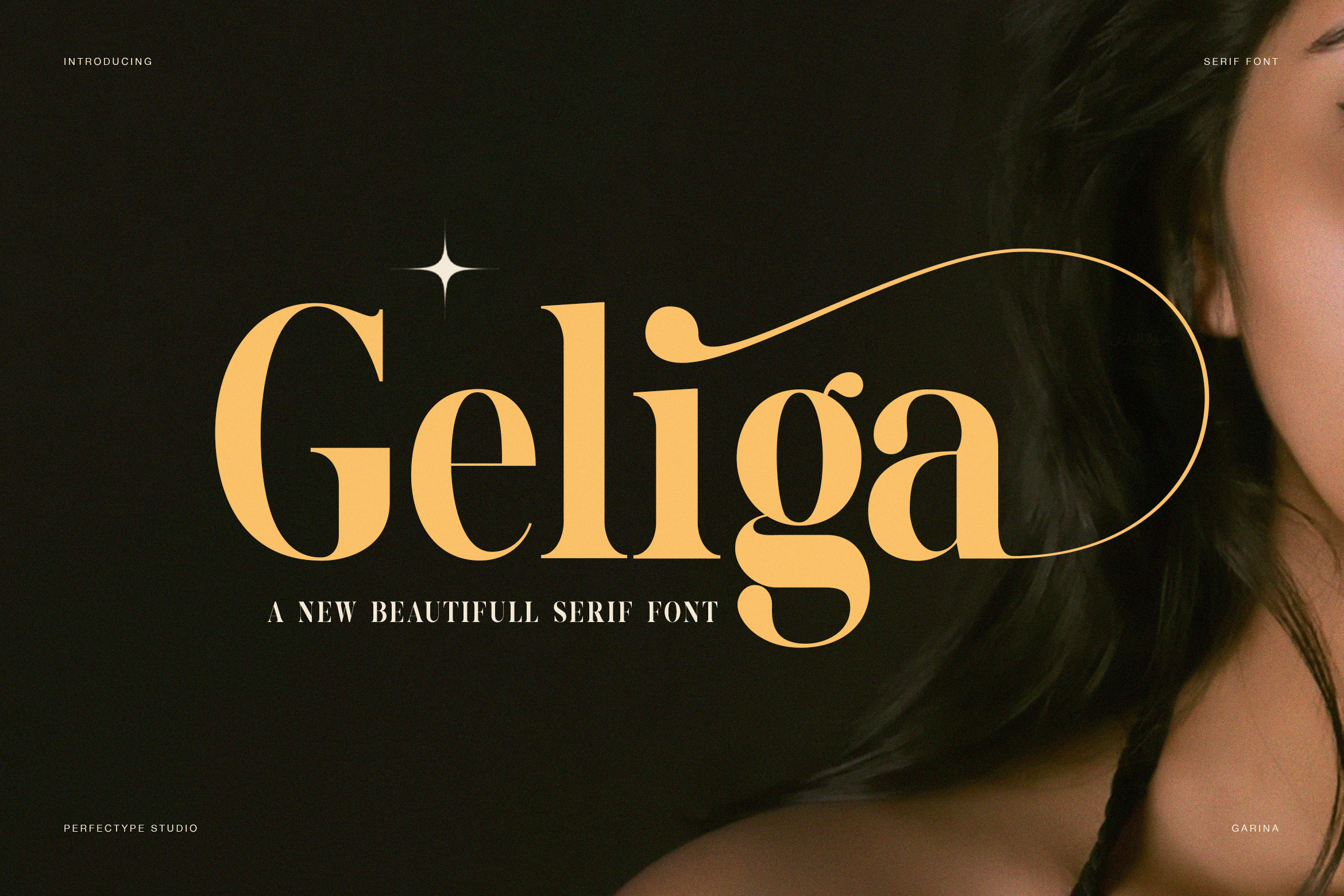
Geliga Elegant Serif Font
Geliga is an elegant serif font designed to express beauty, confidence, and timeless sophistication. From the very first glance, this font delivers a refined balance between classic structure and modern luxury. Therefore, it works perfectly for designers who need a strong visual identity with graceful details.
Moreover, Geliga features smooth curves, balanced contrast, and carefully shaped serifs. As a result, every letter feels harmonious and visually pleasing. In addition, the font includes stylish ligatures that enhance word flow while maintaining excellent readability. Because of this, Geliga performs beautifully in both large headlines and refined body text.
This elegant serif font was created with premium branding in mind. Consequently, it fits seamlessly into beauty brands, fashion editorials, luxury packaging, and wedding designs. Furthermore, its soft yet confident letterforms elevate logos, magazine layouts, and social media visuals without overpowering the content.
Geliga also supports uppercase and lowercase characters that feel consistent and polished. Meanwhile, its punctuation and numerals match the same refined tone. Therefore, designers can build complete visual systems using a single font family. Additionally, the ligature set adds a distinctive personality, making each design feel exclusive and handcrafted.
Because clarity matters, Geliga avoids excessive complexity. Instead, it delivers elegance through simplicity and balance. As a result, it remains SEO-friendly and highly readable across digital and print formats. Likewise, the font adapts well to modern branding trends while preserving a timeless appeal.
Key Features & Benefits
Elegant serif design with luxury character
Beautiful ligatures for smooth typography flow
Perfect for fashion, beauty, and lifestyle brands
Strong readability for print and digital use
Ideal for logos, editorials, and premium packaging
Ultimately, Geliga is more than a typeface. Instead, it is a visual statement that communicates elegance, confidence, and style. If you want a font that feels refined yet approachable, Geliga is the perfect choice.